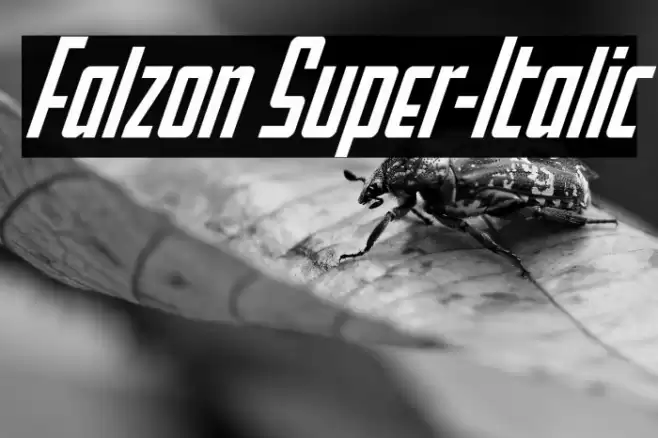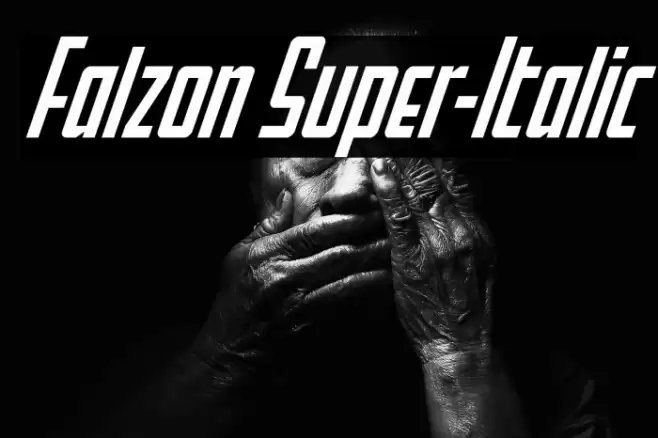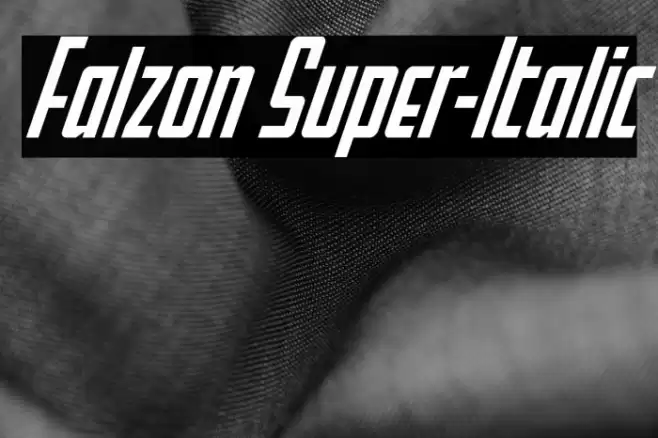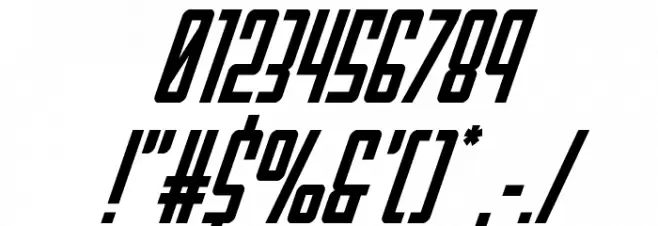
Falzon Super-Italic Font
Falzon Super-Italic Description
This font exhibits a dynamic and energetic style with its sharp, angular lines and pronounced slant, giving it a sense of motion and speed. The uppercase and lowercase letters maintain a consistent slant, enhancing the italicized effect. The numerals and special characters are designed to match the overall aesthetic, with a bold presence that ensures visibility and impact. The font's design is modern and sleek, making it suitable for projects that require a strong visual statement. Its unique style can be particularly effective in branding, advertising, and sports-related materials, where a sense of movement and energy is desired.
A dynamic, italicized font with sharp, angular lines and a bold presence from Uncategorized fonts.
- Proposed Projects: Ideal for branding, advertising, sports materials, and dynamic visual designs.
- Character Spacing: Tight